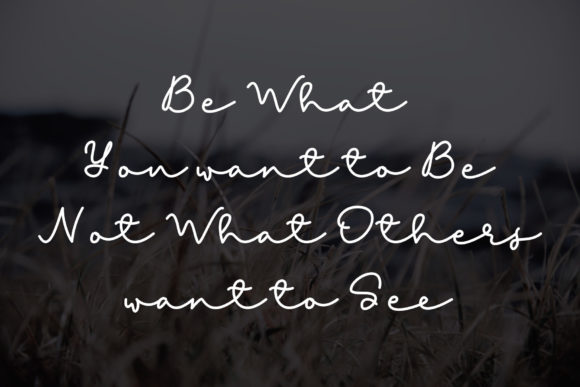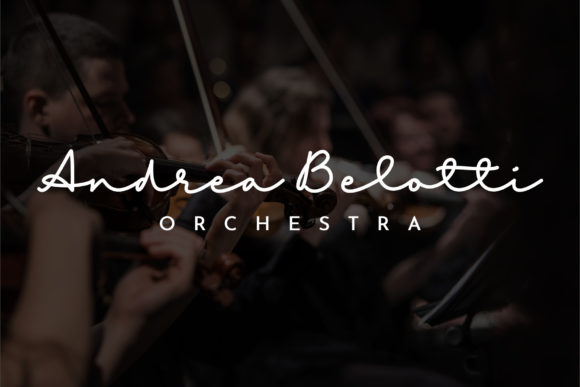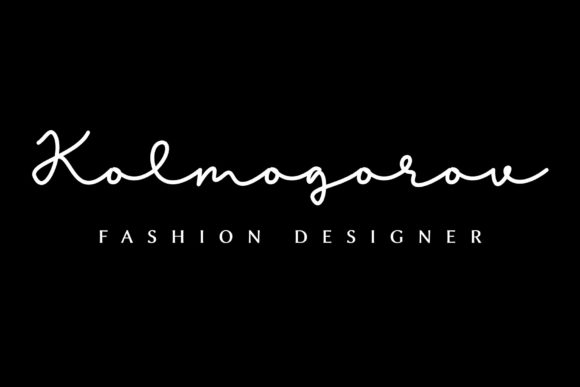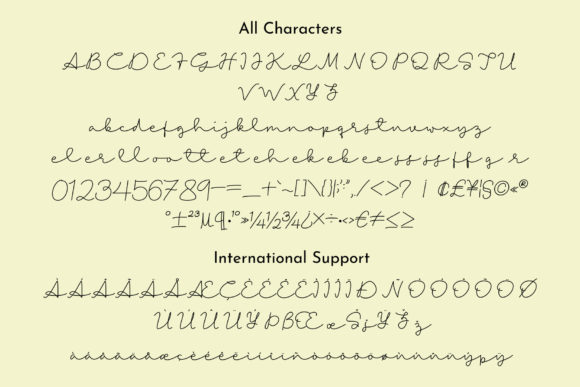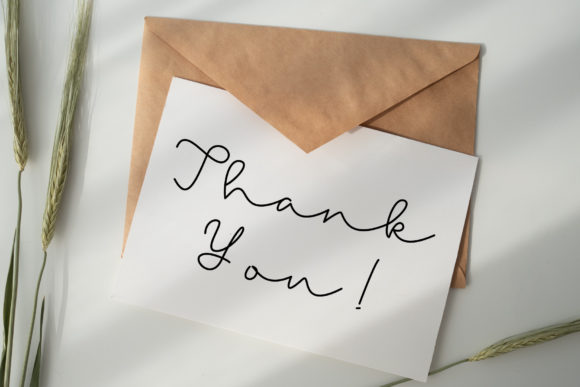
HomeScript FontsTalitha Font Script Fonts Talitha Font FacebookXPinterestWhatsApp Talitha Font Poster 2 Talitha Font Poster 3 Talitha Font Poster 4 Talitha Font Poster 5 Talitha Font Poster 6 About Talitha Font Talitha is a simple, yet sweet monoline script that will add a uniquely romantic spin on any message. DOWNLOAD ON CREATIVE FABRICAThis font is sold and delivered by Creative Fabrica. Font Canyon may earn a commission if you buy through this link. People also explored Margenta Font Love Dog Font Pumpkin Font Astercla Balloon Font Ryder Carley – Script Font Talyant Font Mosphere Font Anabela Juliana Font 381 0 TagsTalitha Font Previous articleBochill FontNext articleJuttely Font LEAVE A REPLY Cancel reply Comment: Please enter your comment! Name:* Please enter your name here Email:* You have entered an incorrect email address! Please enter your email address here Website: Save my name, email, and website in this browser for the next time I comment. Personal Use Free Elevate Your Halloween Designs with 500 Free High-Quality PNG Clipart Files Personal Use Free Read more about this font Rozalyn Personal Use Free Read more about this font Recharge Bold Personal Use Free Read more about this font Entin Personal Use Free Read more about this font BLOG To increase your work productivity, choose the most readable fonts. In today's fast-paced work environment, where digital communication and information consumption are integral to our daily routines, the choice of fonts can significantly impact... Best Fonts for YouTube Videos: Make Your Thumbnails Stand Out Where to Buy American Fonts Online in 2024 Transform Your Website: Elevate Your Typography with 7 Best Web Font Generators